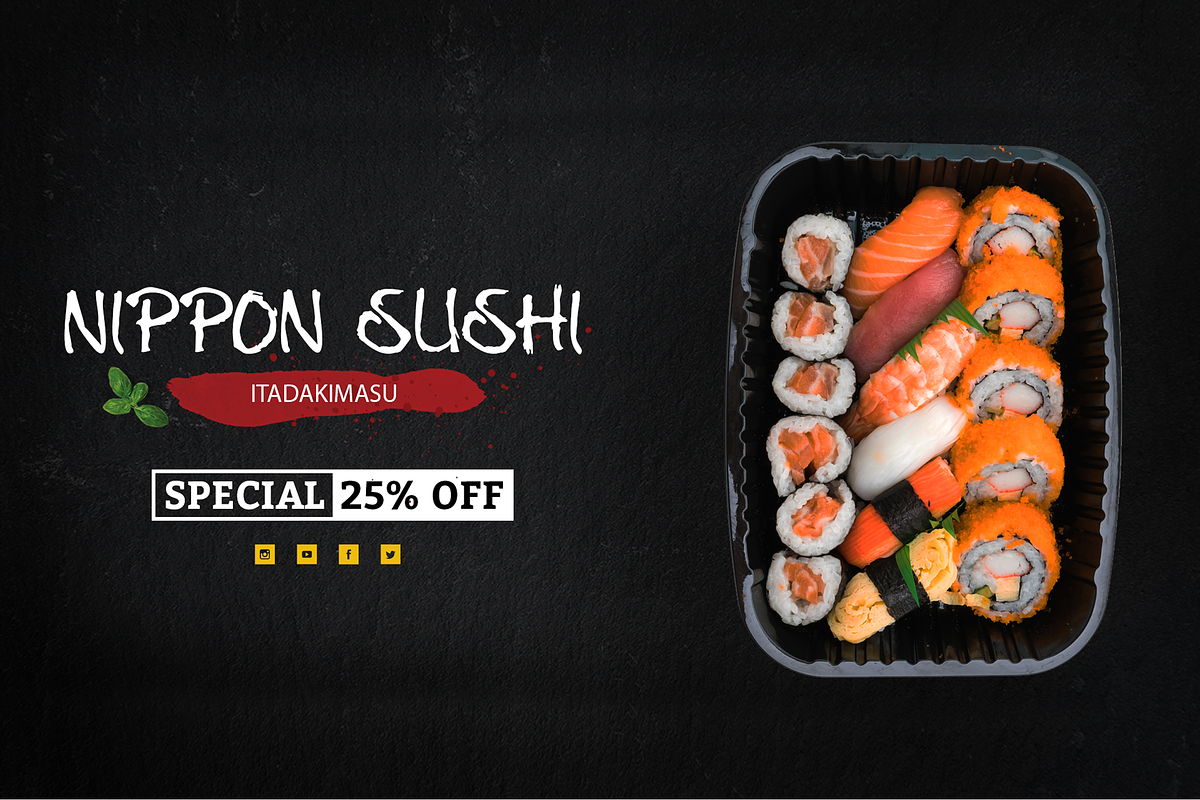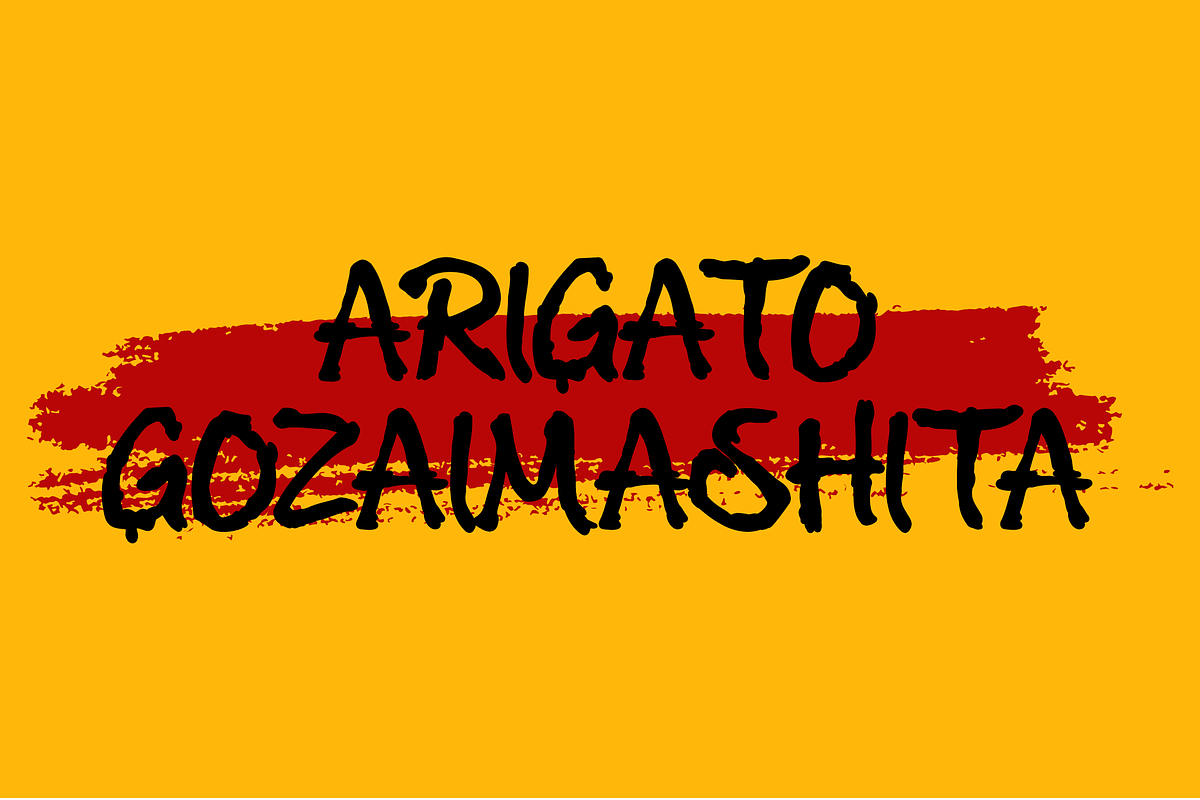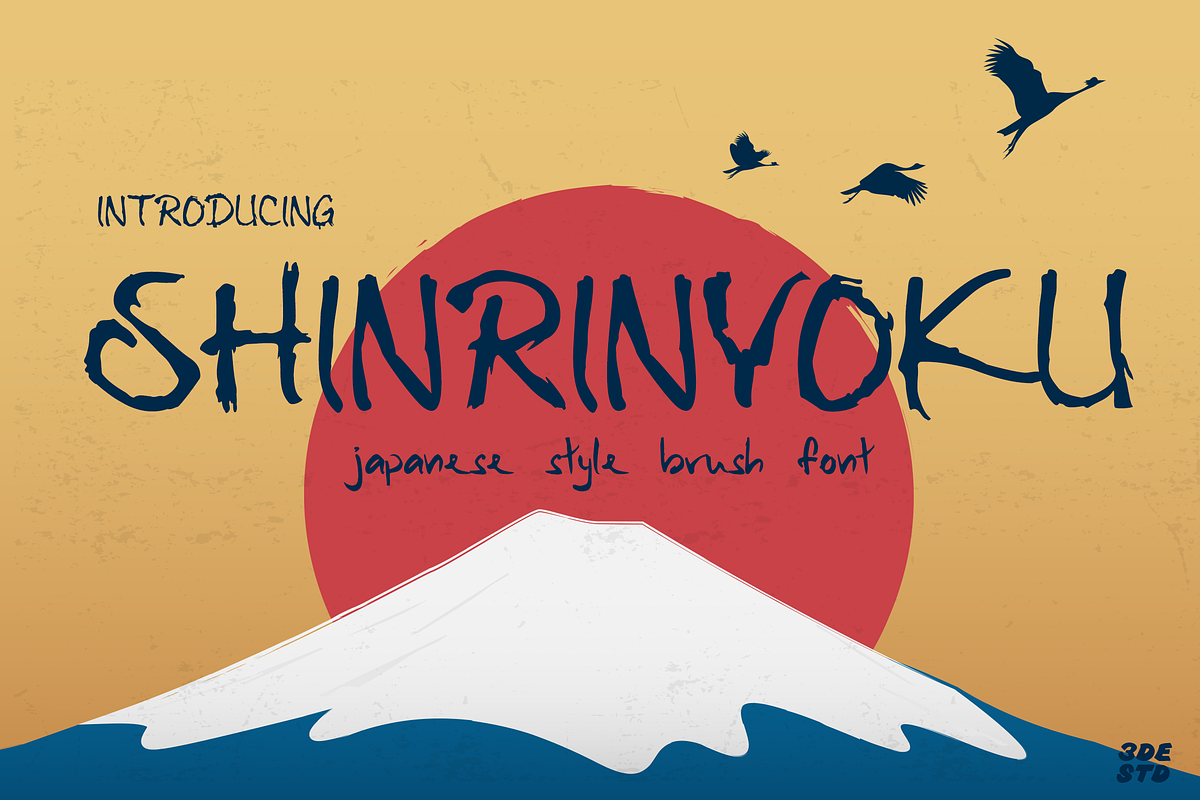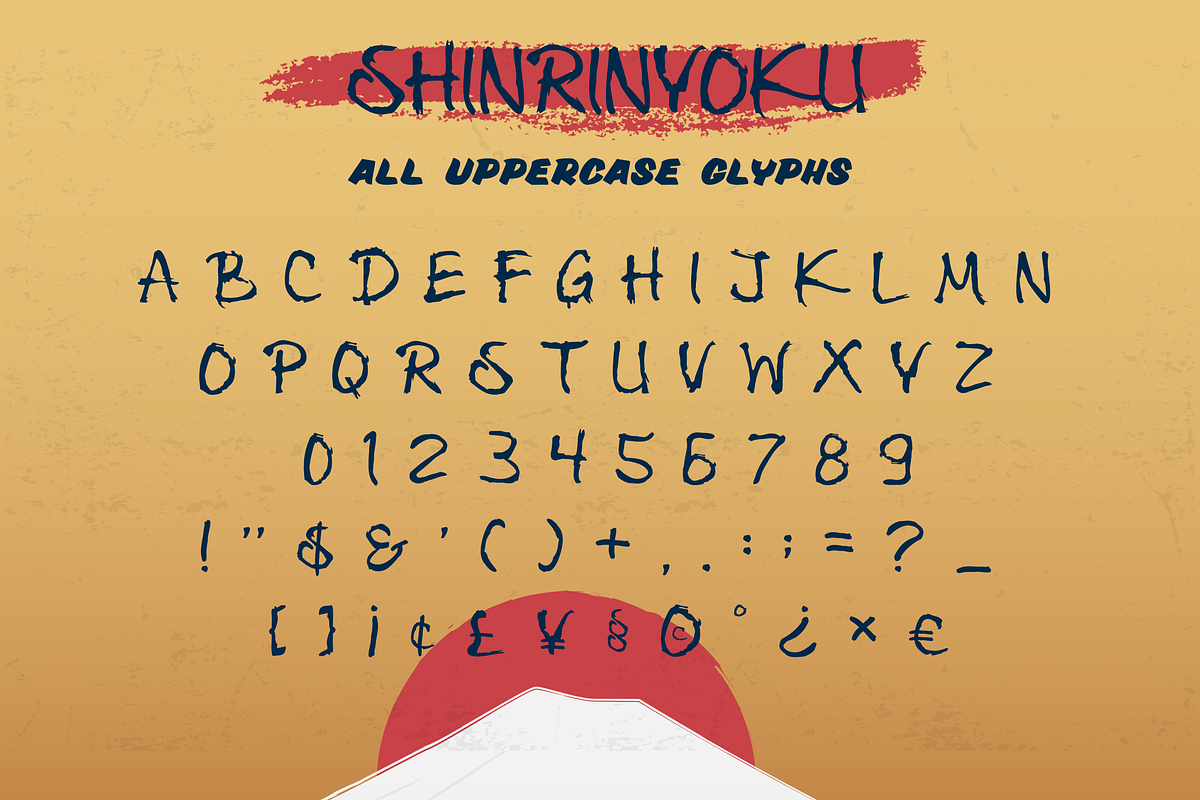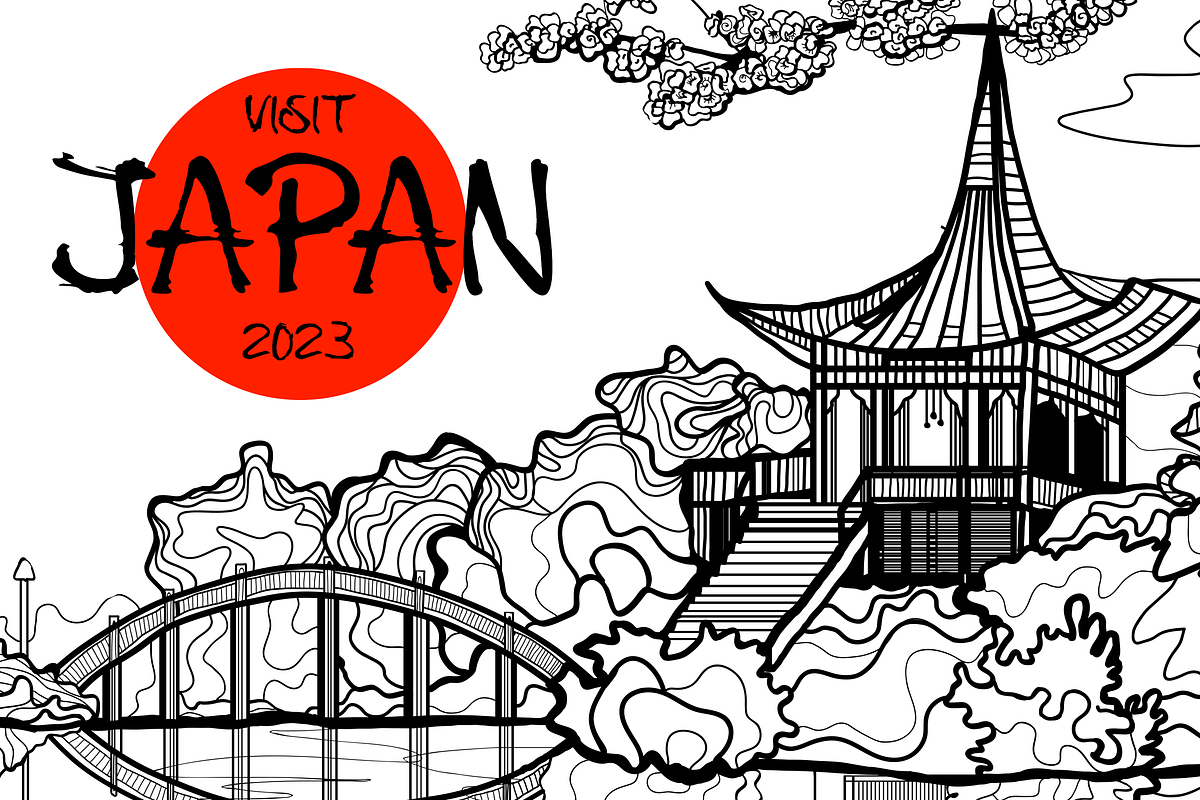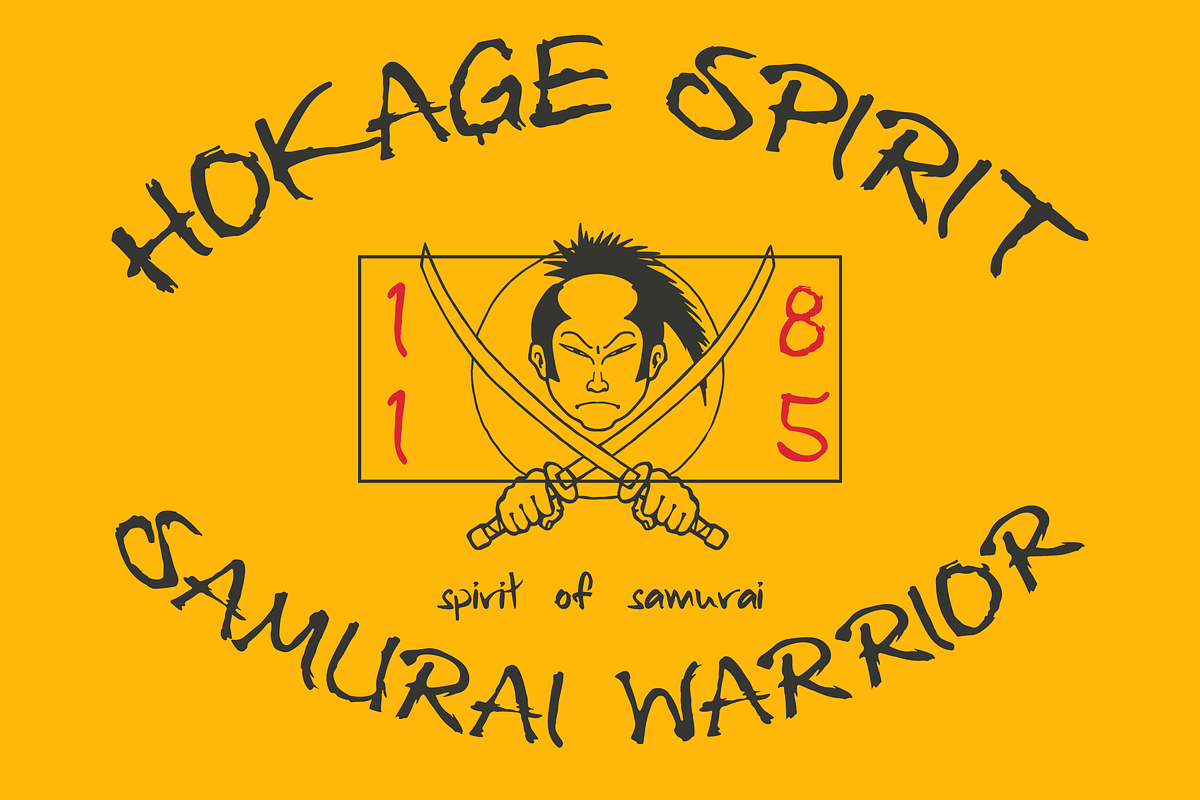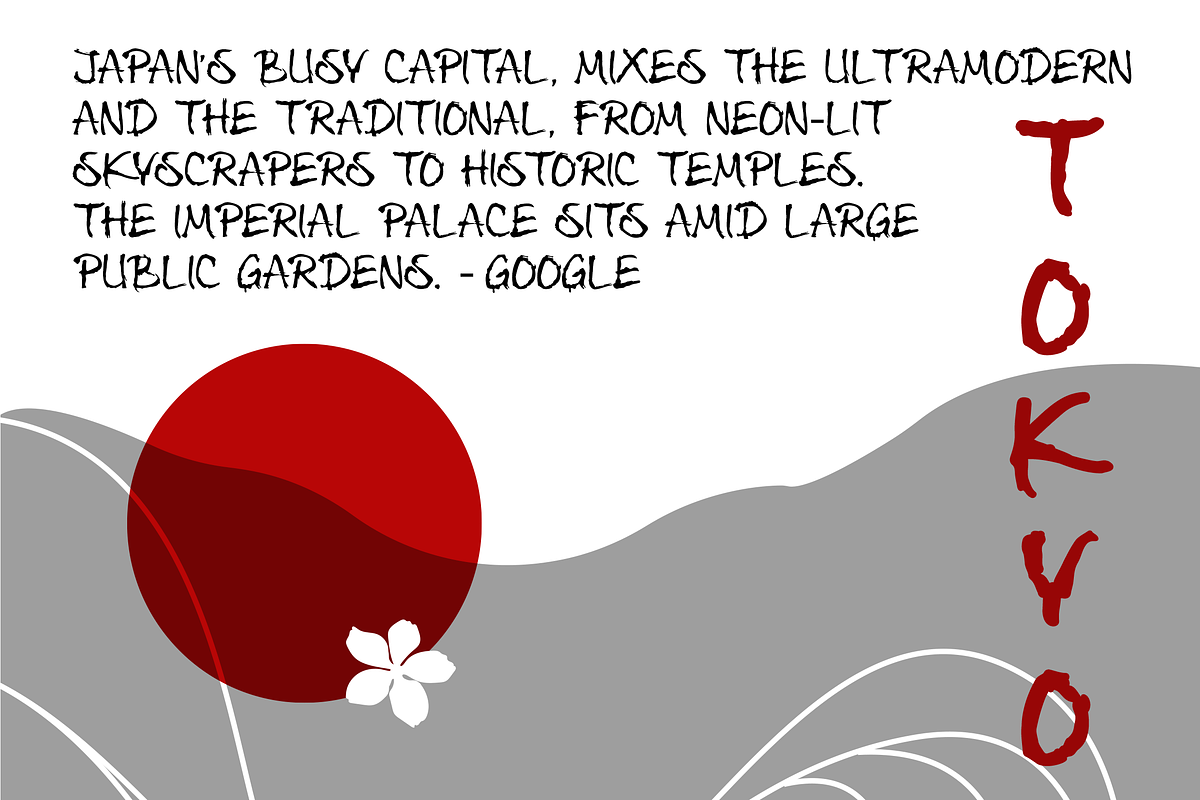
Shinrinyoku | Natural Japanese Brush
SHINRINYOKU is an inspired natural Japanese brush font that created handmade with excellent quality. Each stroke shows a natural and cultural elements in each of the glyphs. This font is suitable for those who like Japanese style design, besides this font is also suitable for those of you who have a Japanese restaurant, Japanese clothing brand, Japanese arts, and business purpose related with Japanese culture.
- All Uppercase letters